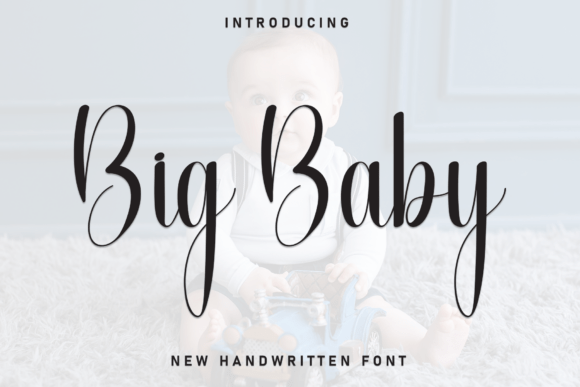
Introducing Big Baby Font: The Ultimate Choice for Whimsical Designs
Are you tired of using the same old fonts for your designs? Look no further! We are thrilled to introduce Big Baby Font, a captivatingly enchanting handcrafted font that is sure to add a touch of magic to your creations. With its warm, welcoming aura and gloriously distinctive style, this font is positively irresistible and oozes enchanting delight.
The Perfect Blend of Whimsy and Charm
Big Baby Font is a charming design that instills every letter with a breezy, merry spirit. Its unique and playful style makes it the ideal choice for eccentric wedding invites, bespoke greeting cards, or any artistic endeavor yearning for an infusion of jovial charm. Whether you’re a designer, crafter, or DIY enthusiast, this font is sure to inspire your creativity and take your projects to the next level.
What Makes Big Baby Font So Special?
So, what sets Big Baby Font apart from other fonts? Here are just a few reasons why this font is a must-have for designers and crafters:
- Handcrafted with love: Big Baby Font is a carefully crafted font that is imbued with a sense of warmth and personality. Each letter has been meticulously designed to create a truly unique and enchanting experience.
- Distinctive and eye-catching: With its gloriously distinctive style, Big Baby Font is sure to grab attention and make your designs stand out from the crowd.
- Perfect for whimsical designs: Whether you’re creating wedding invites, greeting cards, or other artistic projects, Big Baby Font is the perfect choice for adding a touch of whimsy and charm.
How to Use Big Baby Font in Your Designs
Using Big Baby Font in your designs is easy! Here are a few tips to get you started:
- Pair it with other fonts: Big Baby Font pairs perfectly with other fonts, such as sans-serif fonts or script fonts. Experiment with different combinations to find the perfect look for your design.
- Use it for headings and titles: Big Baby Font is perfect for headings and titles, where its distinctive style can really shine.
- Add some color: Big Baby Font looks great in a variety of colors, from bright and bold to soft and pastel. Experiment with different colors to find the perfect look for your design.
Inspiration for Your Next Project
Big Baby Font is the perfect choice for a wide range of projects, from wedding invites and greeting cards to posters and social media graphics. Here are a few ideas to get you started:
- Wedding invites: Create beautiful and unique wedding invites that set the tone for a whimsical and romantic celebration.
- Greeting cards: Design bespoke greeting cards for birthdays, holidays, and other special occasions.
- Posters and prints: Use Big Baby Font to create eye-catching posters and prints that showcase your artistic style.
- Social media graphics: Add a touch of whimsy to your social media graphics, from Facebook posts to Instagram stories.